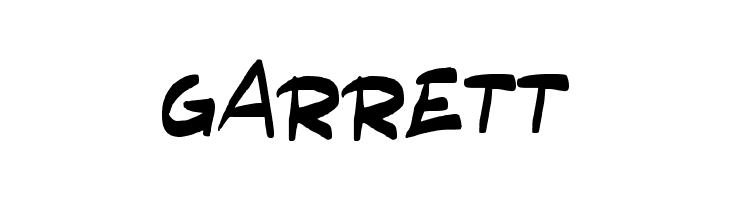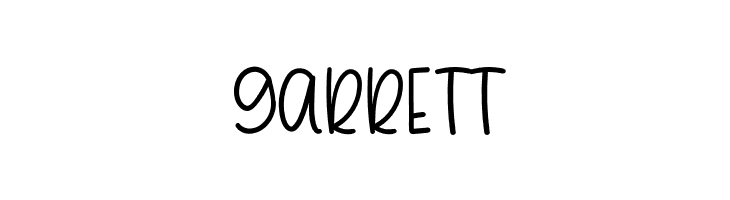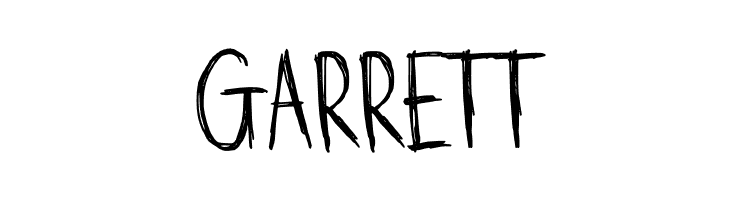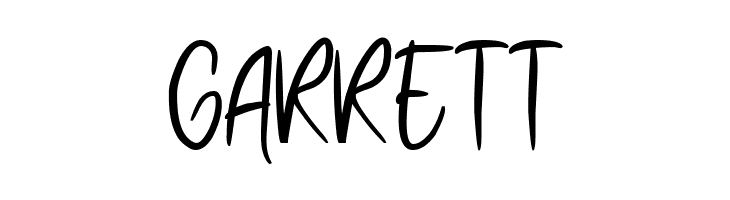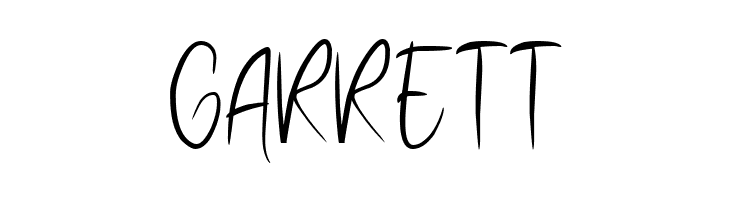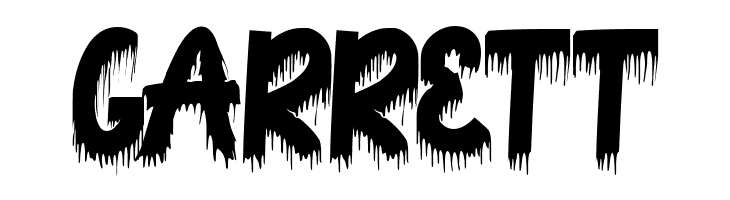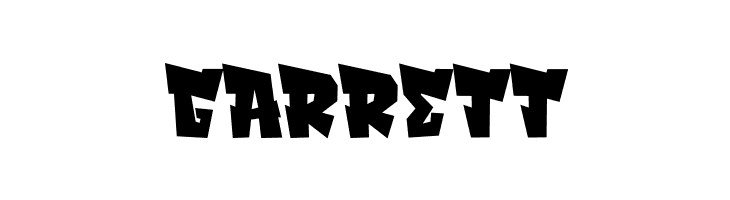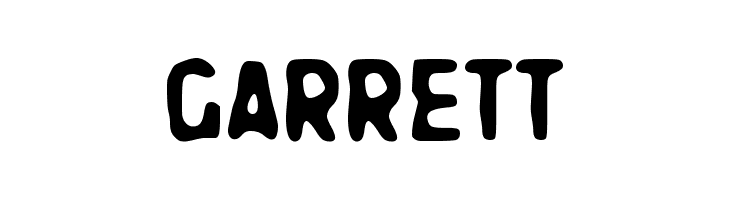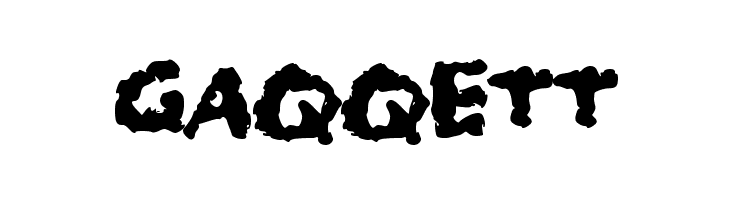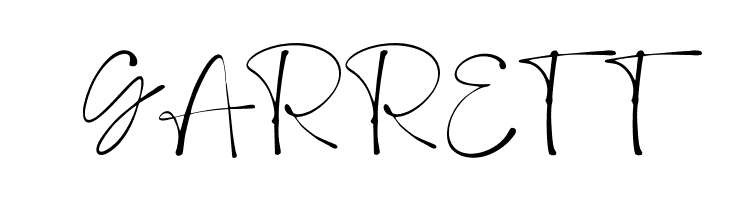
A bold, dripping font with a horror-themed aesthetic.
A hand-drawn, sketch-like font with tall, narrow characters and an artistic feel.
A bold, playful font with a hand-drawn, artistic style.
Playful, expressive handwritten script with tall, narrow forms.
A bold, textured font with an organic, brush-like appearance.
A bold, angular font with a dynamic and edgy style.
A bold, playful handwritten font with thick, rounded strokes.
A playful, handwritten font with smooth curves and a casual style.
A lively, handwritten font with fluid, elongated strokes and a casual elegance.
A bold, handwritten font with fluid, cursive strokes and a playful style.